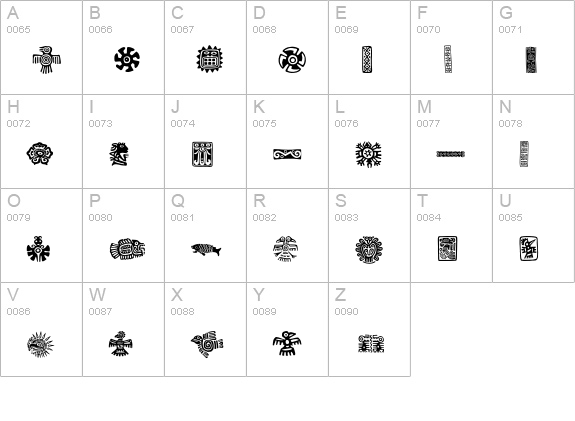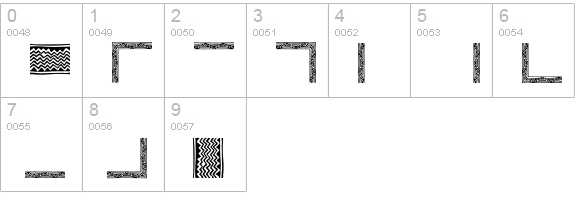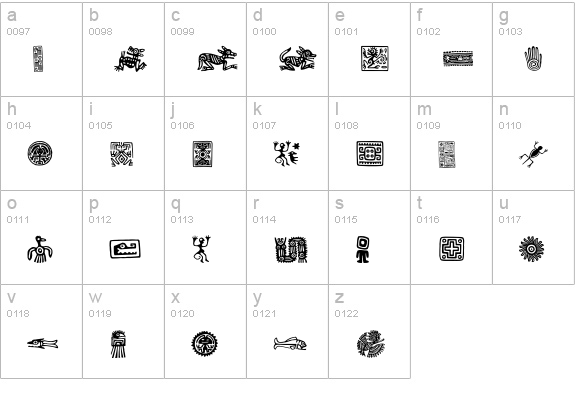
IndianSummer Font Details
IndianSummer font is a visually stunning typeface that captures the essence of a warm and vibrant summer. Its graceful curves and intricate details evoke feelings of joy, relaxation, and the beauty of nature. With its unique blend of elegance and playfulness, this font is perfect for bringing a touch of charm to any design project. What makes IndianSummer font even more appealing is that it is available for free! Yes, you read that right. This gorgeous font can be freely downloaded at FontsMarket.com. Whether you are a professional designer, a student working on a project, or simply someone with a passion for typography, this font offers you the opportunity to add a touch of magic to your creations without any cost. The availability of IndianSummer font as a free download is a testament to the generosity and inclusivity of the design community. By providing this beautiful font for free, FontsMarket.com ensures that creativity knows no boundaries and that everyone, regardless of budget constraints, can access high-quality typography. So, why wait? Embrace the warmth and beauty of IndianSummer font in your designs. Download it for free at FontsMarket.com and let your imagination soar. Whether you're designing a poster, creating a logo, or crafting a stylish invitation, this font will elevate your work and captivate your audience. Don't miss out on this incredible opportunity to enhance your designs with a font that is both visually striking and freely available.